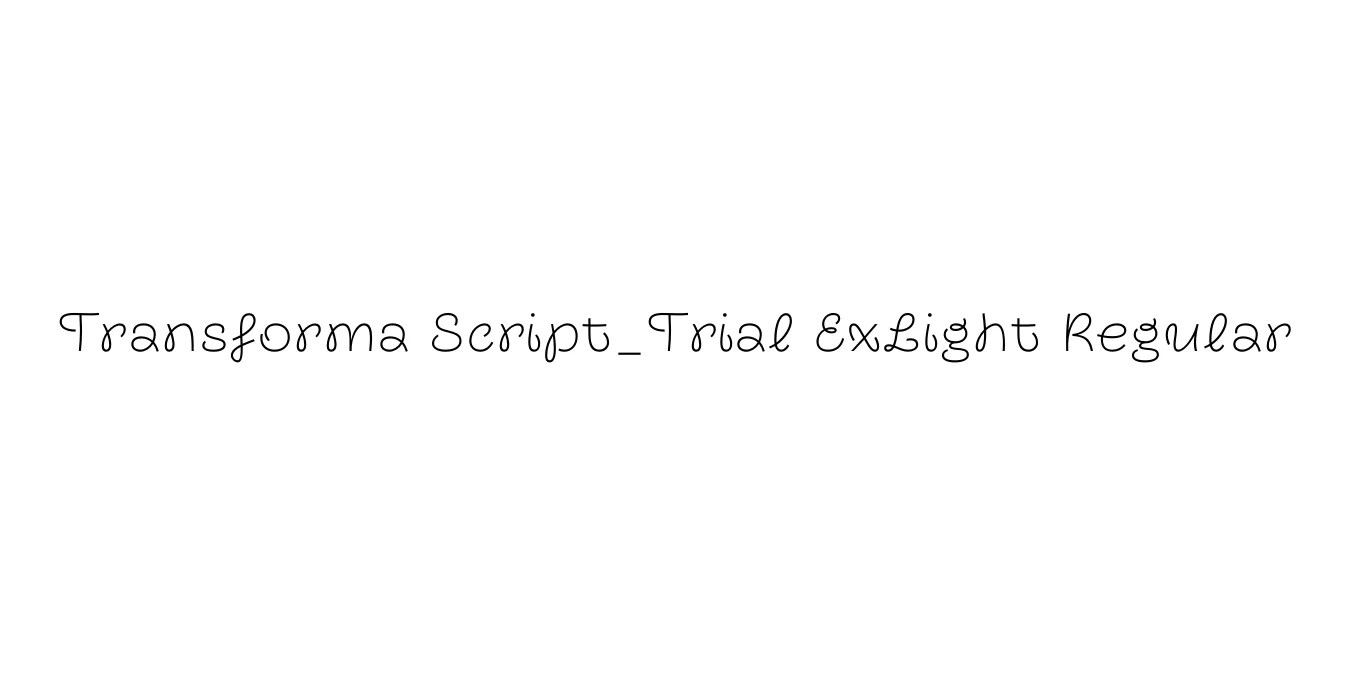
Transforma Script_Trial ExLight Regular
Designed by Zetafonts (Francesco Canovaro, Cosimo Lorenzo Pancini, and Andrea Tartarelli)
Transforma Script is an elegant and contemporary script typeface that belongs to the extensive Transforma superfamily, a versatile typographic system developed by the Zetafonts foundry. This ExLight Regular weight focuses on a delicate, airy aesthetic that balances the fluidity of traditional handwriting with the precision of modern geometric design. It was crafted to function seamlessly alongside its sans and serif counterparts, providing a cohesive visual language for complex design projects.
The script variation is characterized by its clean connections and sophisticated rhythmic flow, making it particularly effective for high-end editorial work and minimalist branding. As part of the Transforma project, this typeface aims to capture a professional yet personal tone, offering designers a wide range of ligatures and stylistic sets that enhance its hand-drawn appeal without sacrificing legibility in digital environments.
Transforma Script_Trial ExLight Regular Best Uses
Excellent for luxury fashion and lifestyle brand identities.
Ideal for sophisticated invitations and save-the-date cards.
Perfect for pull quotes and feature headlines in magazines.
Adds a refined personal touch to digital content and aesthetic overlays.